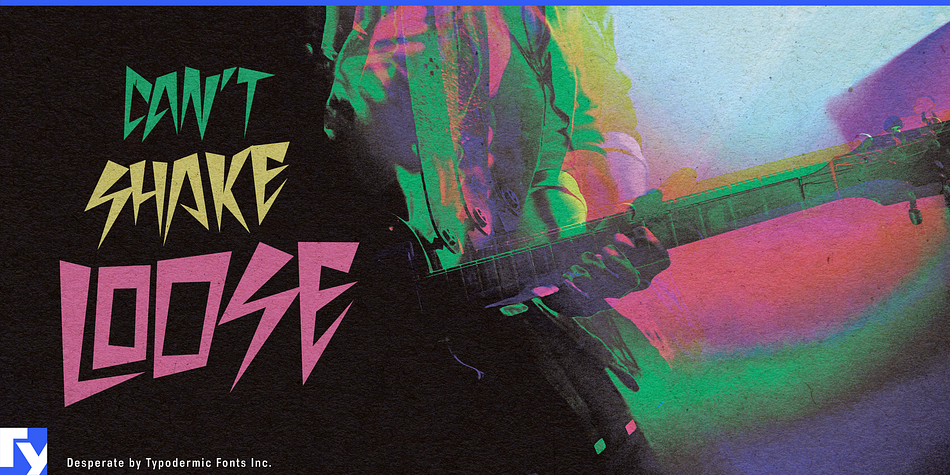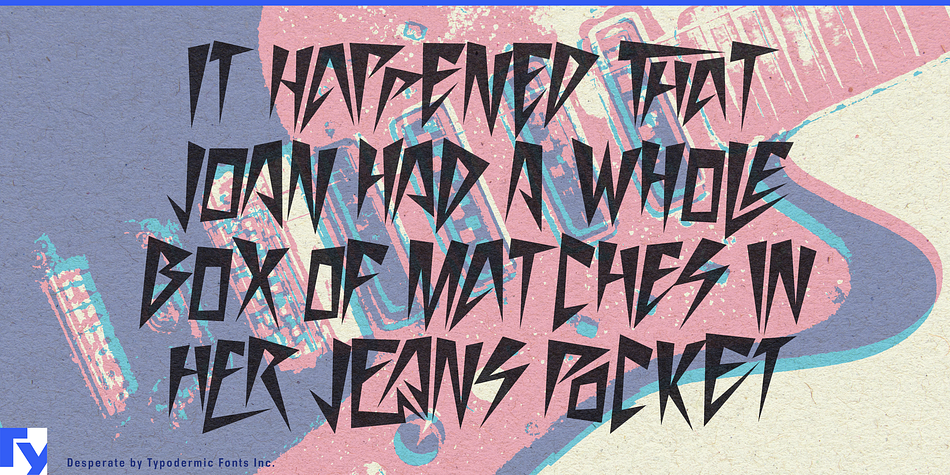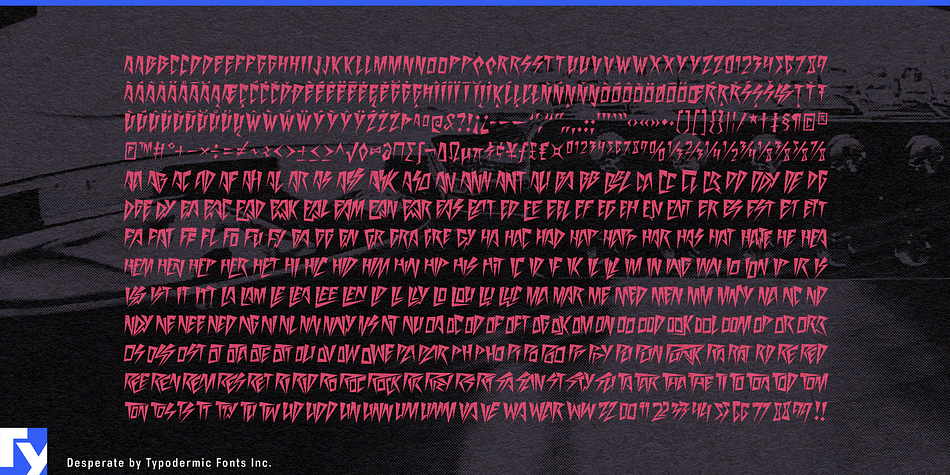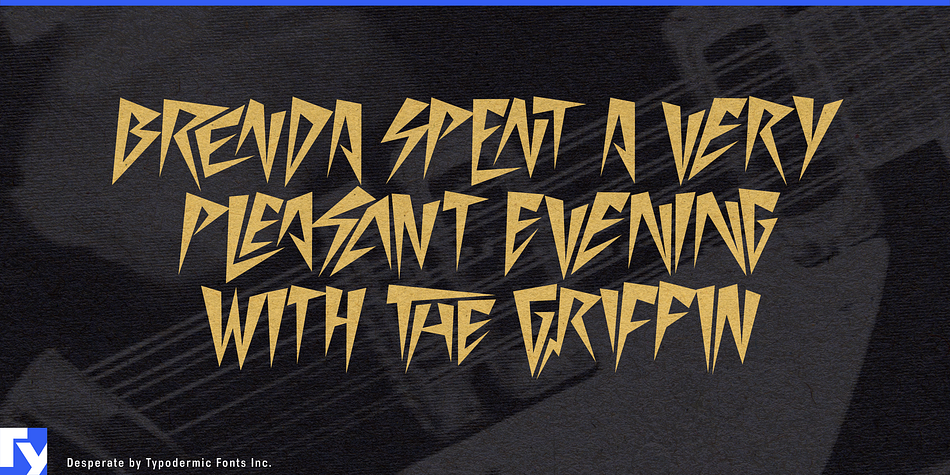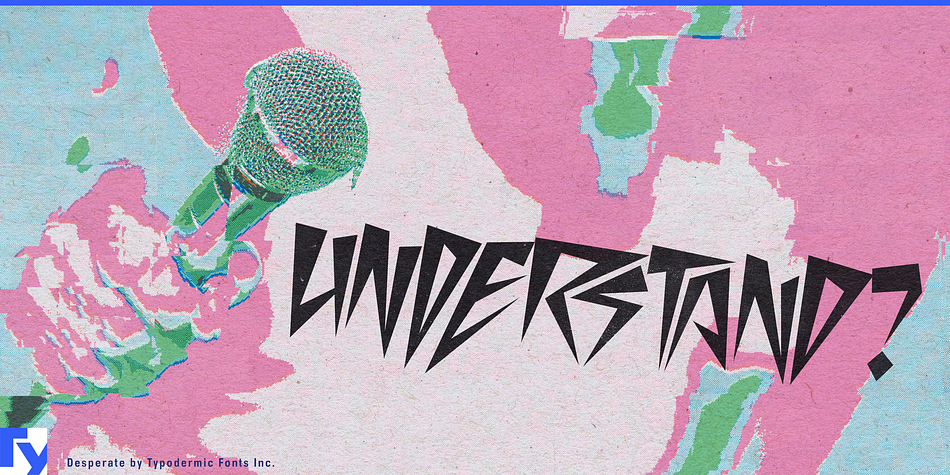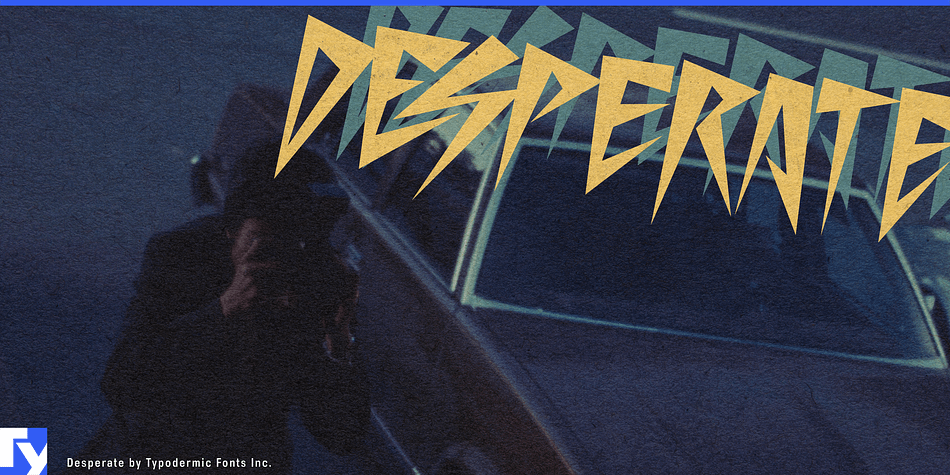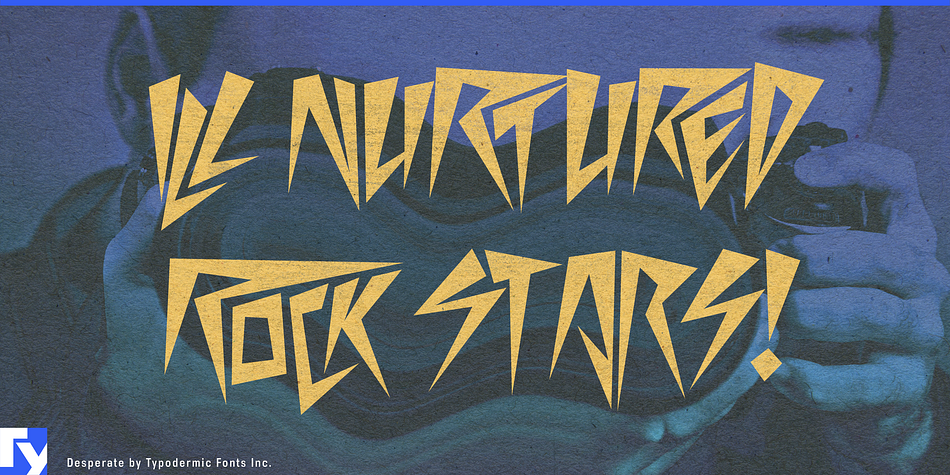
Desperate is a novelty font published by Typodermic Fonts Inc.
Desperate is a punk rock, new wave typeface with interlocking shapes. OpenType-aware apps will generate unruly ligatures for 248 letter combinations automatically. Desperate will deliver your message in an aggressive, hard-hitting style. Most Latin-based European writing systems are supported, including the following languages. Afaan Oromo, Afar, Afrikaans, Albanian, Alsatian, Aromanian, Aymara, Bashkir (Latin), Basque, Belarusian (Latin), Bemba, Bikol, Bosnian, Breton, Cape Verdean, Creole, Catalan, Cebuano, Chamorro, Chavacano, Chichewa, Crimean Tatar (Latin), Croatian, Czech, Danish, Dawan, Dholuo, Dutch, English, Estonian, Faroese, Fijian, Filipino, Finnish, French, Frisian, Friulian, Gagauz (Latin), Galician, Ganda, Genoese, German, Greenlandic, Guadeloupean Creole, Haitian Creole, Hawaiian, Hiligaynon, Hungarian, Icelandic, Ilocano, Indonesian, Irish, Italian, Jamaican, Kaqchikel, Karakalpak (Latin), Kashubian, Kikongo, Kinyarwanda, Kirundi, Kurdish (Latin), Latvian, Lithuanian, Lombard, Low Saxon, Luxembourgish, Maasai, Makhuwa, Malay, Maltese, Māori, Moldovan, Montenegrin, Ndebele, Neapolitan, Norwegian, Novial, Occitan, Ossetian (Latin), Papiamento, Piedmontese, Polish, Portuguese, Quechua, Rarotongan, Romanian, Romansh, Sami, Sango, Saramaccan, Sardinian, Scottish Gaelic, Serbian (Latin), Shona, Sicilian, Silesian, Slovak, Slovenian, Somali, Sorbian, Sotho, Spanish, Swahili, Swazi, Swedish, Tagalog, Tahitian, Tetum, Tongan, Tshiluba, Tsonga, Tswana, Tumbuka, Turkish, Turkmen (Latin), Tuvaluan, Uzbek (Latin), Venetian, Vepsian, Võro, Walloon, Waray-Waray, Wayuu, Welsh, Wolof, Xhosa, Yapese, Zapotec Zulu and Zuni.